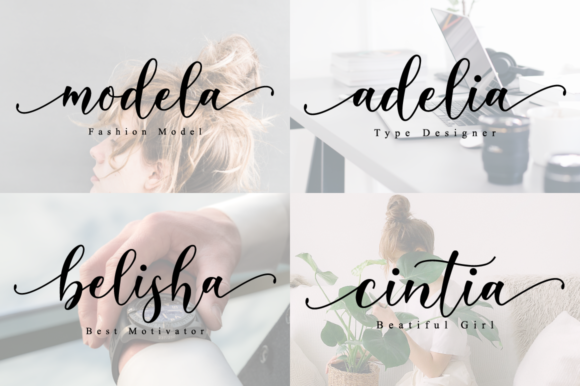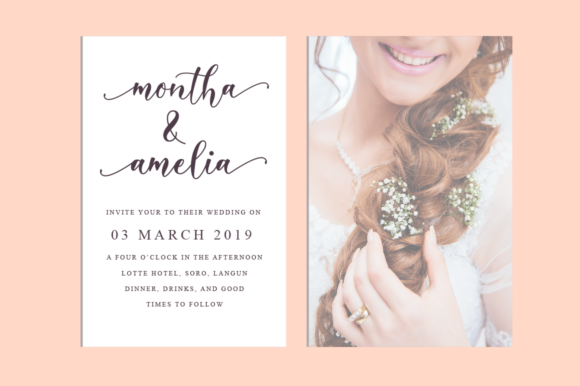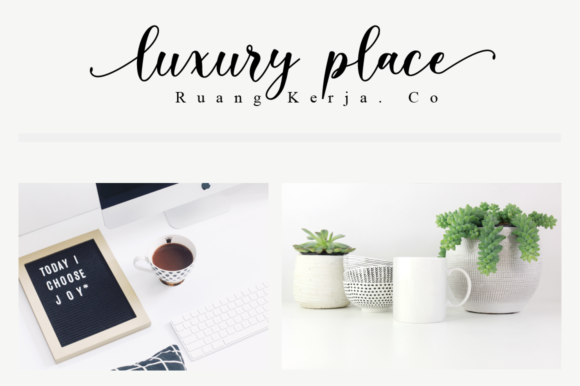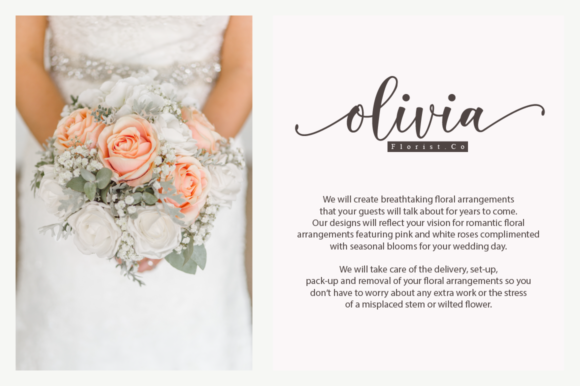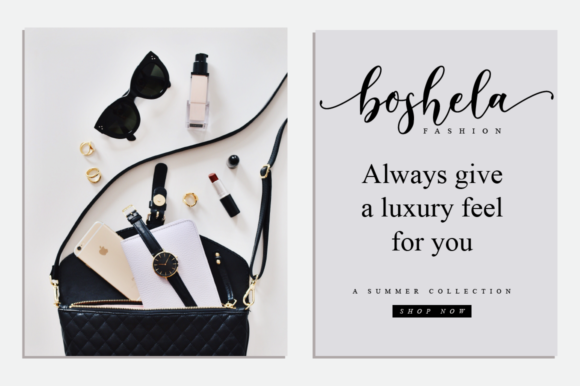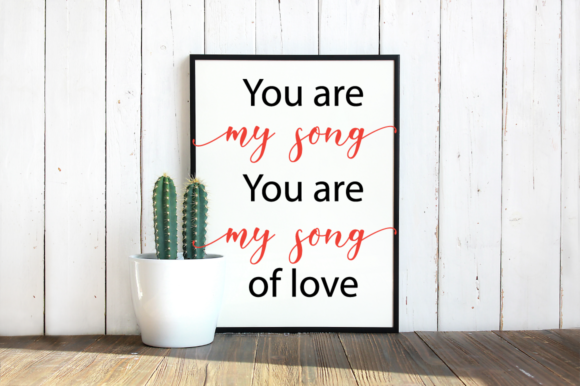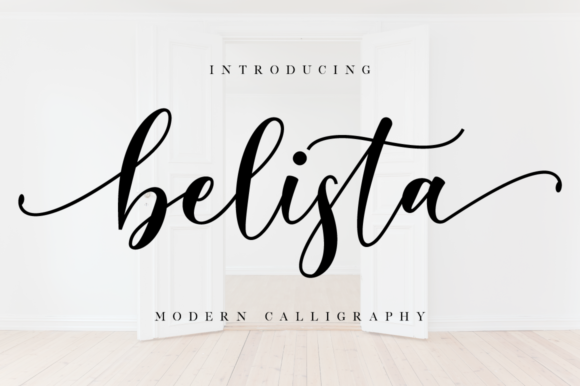
Introducing Belista Script Font: Elevate Your Design Projects with Elegance
Are you tired of using the same old fonts in your design projects? Do you want to add a touch of elegance and sophistication to your creations? Look no further than Belista Script Font, a beautiful and light script font that is sure to make your designs stand out.
What is Belista Script Font?
Belista is a stunning script font that is designed to add a touch of luxury and refinement to any design project. With its flowing lines and delicate curves, Belista is perfect for creating beautiful and eye-catching designs that will leave a lasting impression.
Belista is a light script font, which means it is perfect for use in a variety of design projects, from elegant wedding invitations and stylish logos to sophisticated packaging and beautiful branding materials.
Features of Belista Script Font
So, what makes Belista Script Font so special? Here are just a few of its key features:
- Beautiful and elegant design: Belista has a stunning, hand-crafted design that is sure to add a touch of sophistication to any design project.
- Light and airy feel: Despite its elegant design, Belista is a light and airy font that is perfect for use in a variety of design projects.
- Highly legible: Belista is designed to be highly legible, even at small sizes, making it perfect for use in body text and other applications where readability is key.
- Multilingual support: Belista supports a wide range of languages, making it a great choice for designers who work with clients from around the world.
Uses for Belista Script Font
So, what can you use Belista Script Font for? The possibilities are endless! Here are just a few ideas to get you started:
- Wedding invitations and stationery: Belista is perfect for creating beautiful and elegant wedding invitations, save-the-dates, and other stationery.
- Logos and branding: Belista’s elegant design makes it a great choice for use in logos and other branding materials.
- Packaging and labeling: Belista is perfect for use in packaging and labeling, adding a touch of sophistication and elegance to any product.
- Web design: Belista can be used to create beautiful and elegant web designs, from headings and titles to body text and more.
Why Choose Belista Script Font?
So, why should you choose Belista Script Font for your next design project? Here are just a few reasons:
- Unique and elegant design: Belista has a unique and elegant design that is sure to make your designs stand out.
- High-quality and professional: Belista is a high-quality, professional font that is designed to meet the needs of designers and crafters.
In conclusion, Belista Script Font is a beautiful and elegant font that is perfect for designers and crafters who want to add a touch of sophistication and luxury to their design projects. With its flowing lines, delicate curves, and highly legible design, Belista is sure to make any design project stand out.